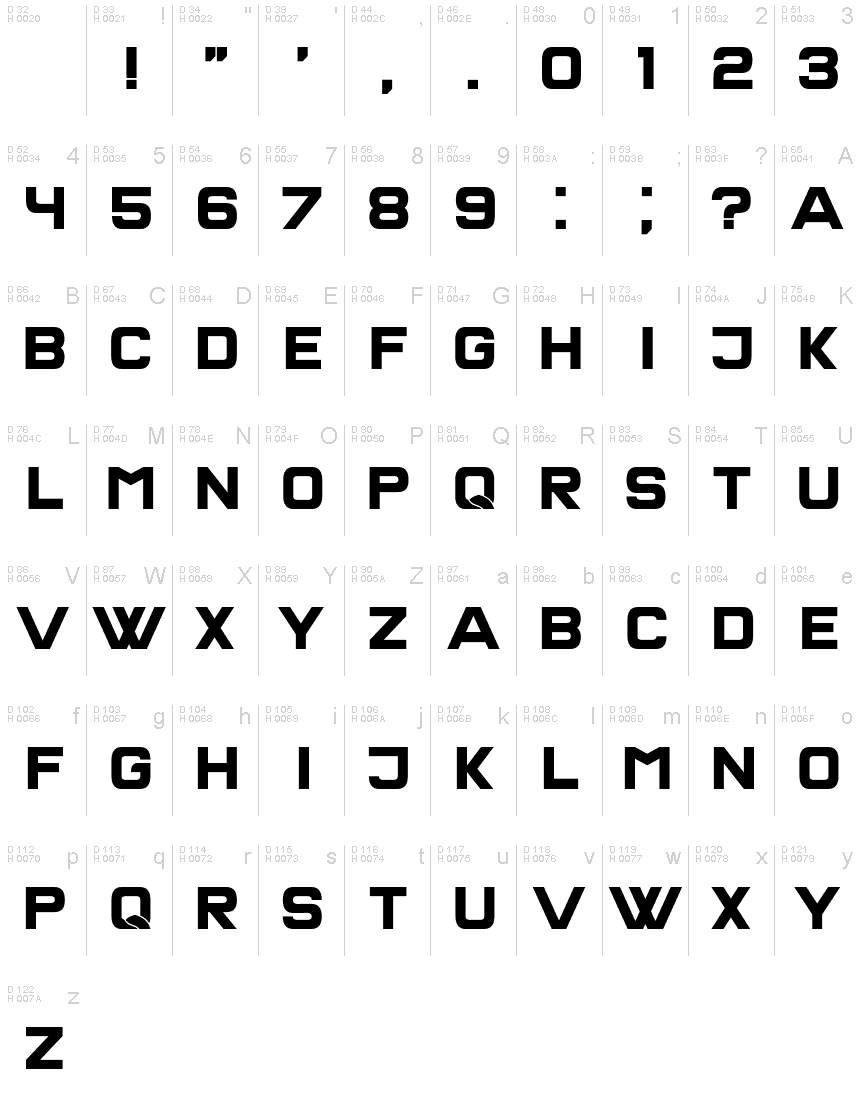
Keno Regular
Keno, the bold and expanded sans serif font by Vladimir Nikolic is the perfect choice for any project that requires a strong, clear, and modern look. Its clean lines and wide spacing make it ideal for headlines and titles that need to grab attention. The unique design of Keno also makes it suitable for branding projects such as logos, packaging, or advertising material. Its versatility extends to digital designs like websites or social media graphics where its boldness can stand out against busy backgrounds. With Keno, your text will be impossible to ignore.